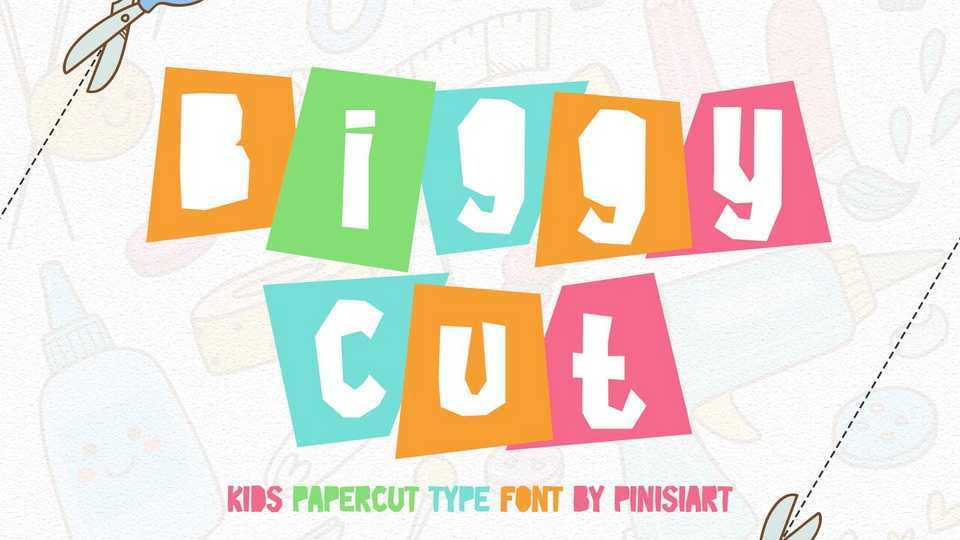
Download Biggy Cut font, a playful kids typeface. Biggy Cut looks like from a fresh cut of paper and ready to be put and arranged as a fun project for kids.